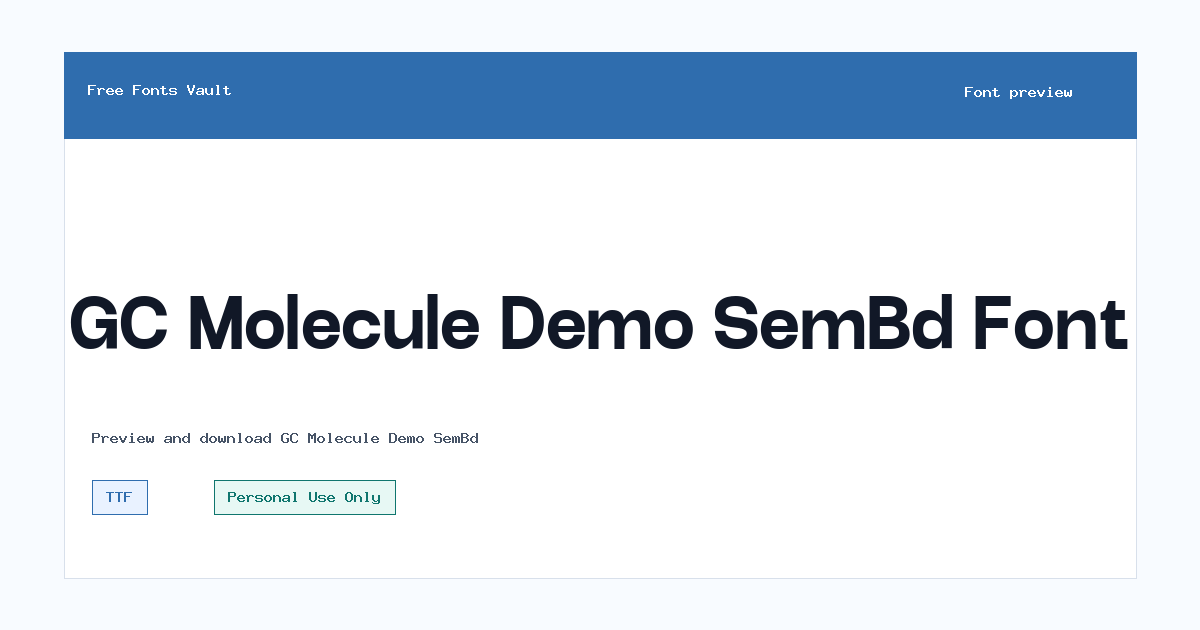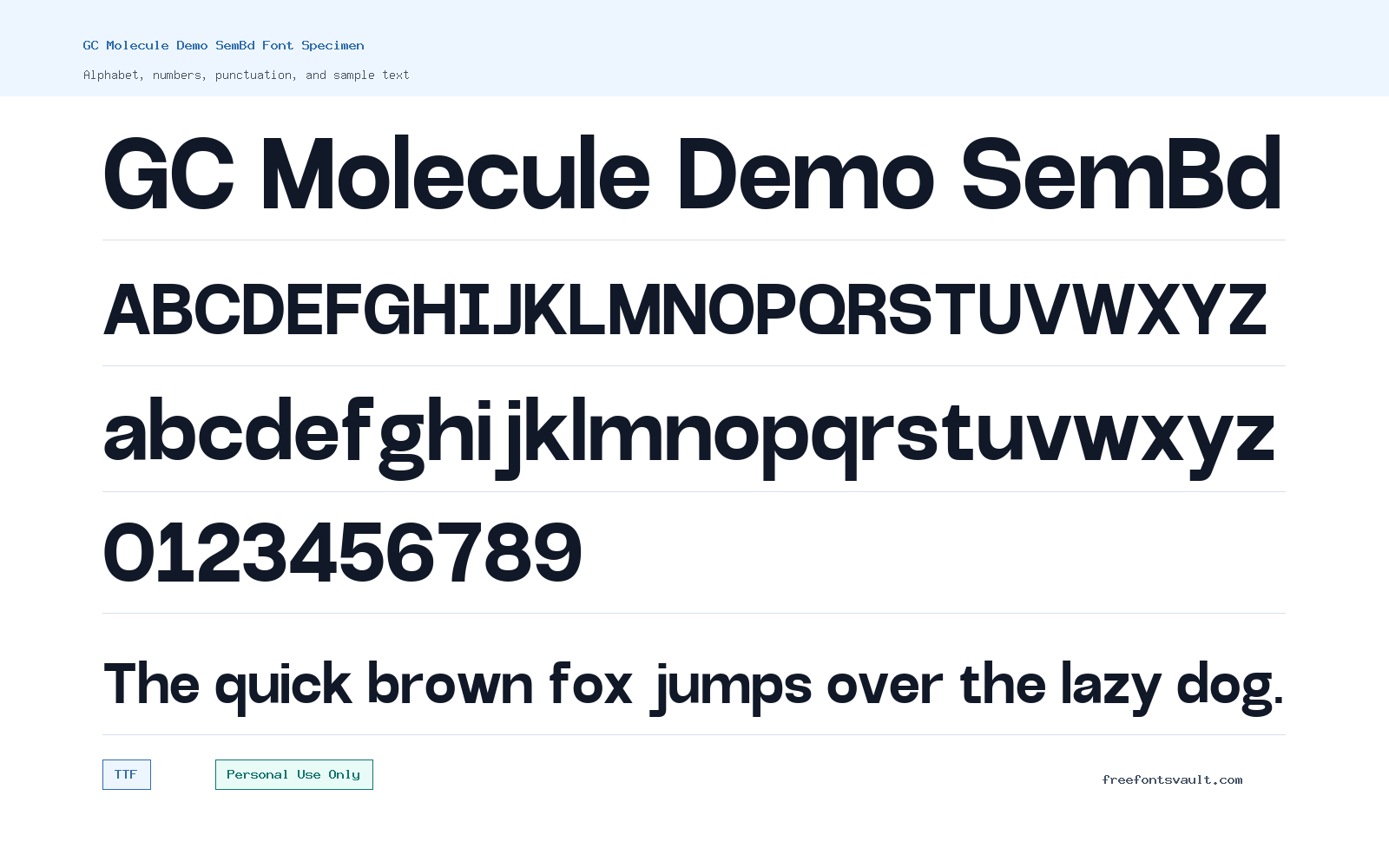
GC Molecule Demo SemBd
- Designer Ken Priska Dewirani of Glyphonic
GC Molecule Demo SemBd is a semi-bold sans serif font from Glyphonic, designed by Ken Priska Dewirani. It is best treated as a demo or personal-use typeface, so it is useful for testing a look before deciding whether you need a broader license.
GC Molecule Demo SemBd gives you a strong, clean sans serif option in a 700-weight style. The semi-bold weight makes it better suited to short, visible text than long reading blocks. Try it for titles, labels, poster lines, social graphics, thumbnails, mockups, or personal design experiments where a firm sans serif voice is useful without becoming too heavy.
- Semi-bold 700-weight sans serif style for headings and short display text
- Personal posters, banners, thumbnails, and social media graphics
- Headline mockups, logo-style drafts, UI labels, and short title treatments
GC Molecule Demo SemBd is credited to Ken Priska Dewirani of Glyphonic.
What kind of font is GC Molecule Demo SemBd?
It is a semi-bold sans serif font. The listed weight is 700, which makes it more suitable for headings and short emphasis than long body text.
Where does this font work best?
Use it for personal-use headlines, posters, social graphics, title cards, mockups, and other short text where a clear semi-bold sans serif style is needed.
Should I use it for paragraphs?
It is better for short text. If you need paragraphs, pair it with a lighter, more neutral reading font and keep GC Molecule Demo SemBd for headings.